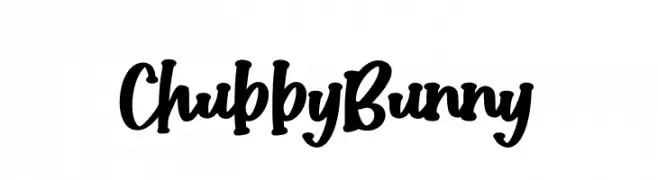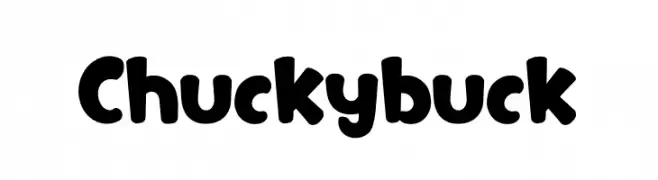
A playful, casual handwritten font with fluid, connected strokes.
A playful, bold font with rounded edges and whimsical style.
A playful, bold, and rounded font with a whimsical style.
Playful handwritten font with rounded edges.
Playful and bold rounded font.
Aggressive, heavy metal-inspired display font with sharp, irregular forms.
Chaotic, spiky display font with extreme visual intensity.
Distressed, bold slab serif with a vintage, rugged look.
Bold, playful decorative font with bubble-like cutouts.
A bold, geometric font with a futuristic and modern aesthetic.
A modern, angular italic font with a futuristic and geometric style.
A modern, sleek font with elongated, narrow characters and a minimalistic style.
A geometric, futuristic font with angular and linear characters.
A bold, playful font with chunky, rounded letters and a whimsical style.
A bold, playful font with a chunky, handcrafted appearance.
A bold, industrial font with a mechanical, geometric design.
A fragmented, bold font with a digital, mechanical aesthetic.
A bold, geometric font with a futuristic and modern style.
A bold, italicized font with a geometric, angular design and a modern, tech-inspired look.